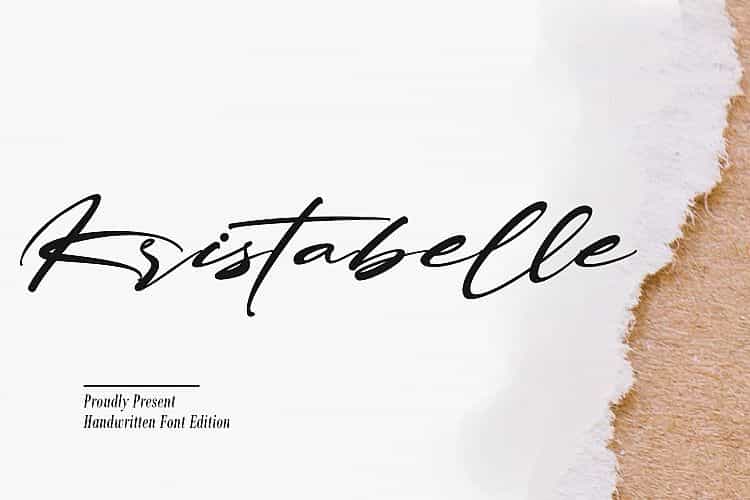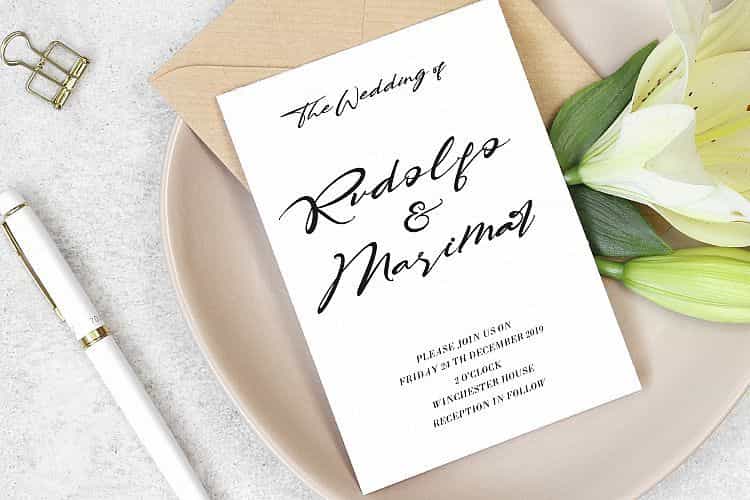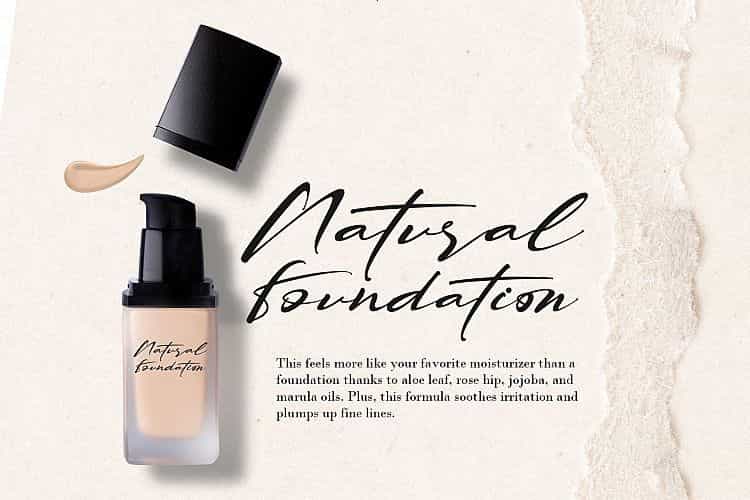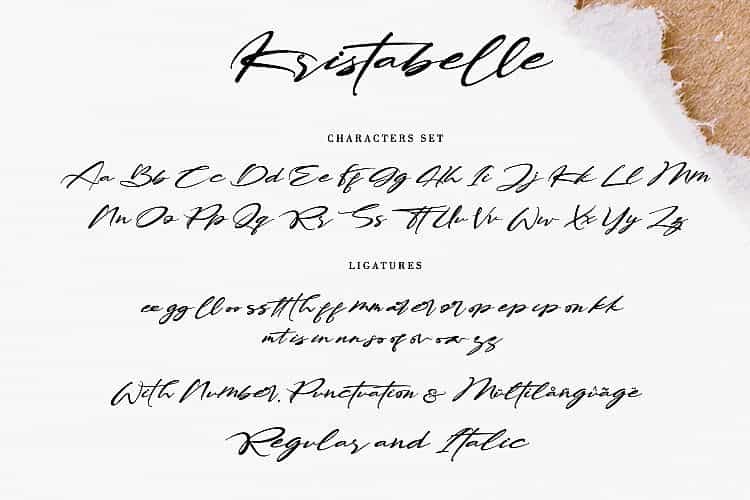
Discover Kristabelle Script Font, part of the Commercial Brush Calligraphy collection—a versatile and unique font perfect for adding a personal touch to your projects. Download it for free and enjoy crafting designs with style, from invitations to social media posts. This font is available exclusively for personal use, giving you the freedom to create without limits. Unlock your creativity with Kristabelle Script Font today!
Introducing Kristabelle Font. It is a stylish and cursive font. Kristabelle Script is suitable for logos, invitations, stationery, wedding, social media posts, ads, packaging, products, labels, photos, watermarks, events, or anything.